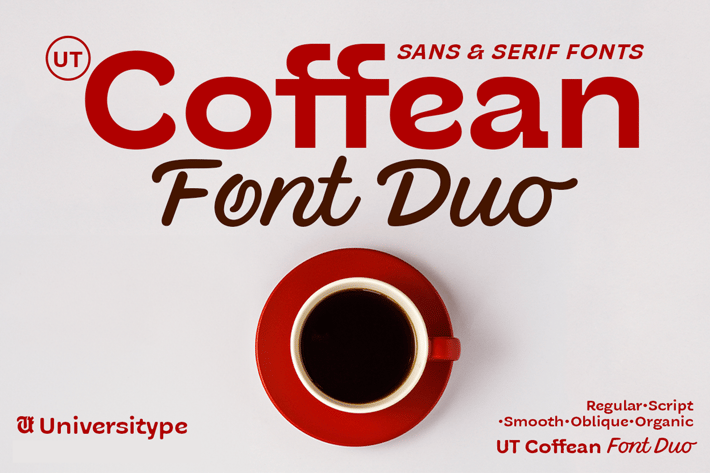
Coffean - A Display Font Duo
Have you ever wonder how typography meets the cozy charm of your favorite café? well, meet Coffean Font Duo. Crafted with inspiration from the organic curves of a coffee bean, this font collection offers a versatile blend of Coffean Sans and Coffean Script, making it a go-to for anyone seeking a lovely coffee font with warmth and authenticity. Perfect for branding, packaging, or digital content, this Kenyan coffee font alternatives evokes a cozy, handcrafted feel, ideal for creating an inviting atmosphere in any design project. With a range of styles, including Coffean Sans Regular, Coffean Sans Smooth, Coffean Sans Oblique, and Coffean Sans Organic, this font family caters to diverse design needs.
Key Features:
Versatility in Styles: With five font styles in the Coffean Sans family and an elegant script option, this typeface offers flexibility and creative control for branding, headlines, and more.
Organic Inspiration: The font’s curves, subtle indentations, and natural flow are inspired by the structure of a coffee bean, bringing a handcrafted quality that sets it apart.
Multi-Language Support: Built with multi-language support, Coffean adapts to diverse audiences, making it a fantastic display typeface for global brands.
Display Typeface with Personality: This decorative sans-serif font family balances readability with style, creating an inviting look for any headline, medium, or condensed layout.
Inspiration Behind the Design:
The creation of Coffean Font Duo began with a close study of the coffee bean’s anatomy. The aim was to capture its essence — a shape that resonates with warmth, richness, and comfort. Each character in Coffean Sans mirrors the bean’s organic form, with rounded edges, smooth curves, and a central “crease” that symbolizes both structure and softness. This subtle asymmetry adds a human, approachable touch, reminiscent of the coffee bean’s natural charm.
In Coffean Script, the design takes on a more fluid, handwritten quality, resembling the swirling motion of steam over a freshly brewed cup. The script style has a light, graceful movement, offering an inviting and personal feel. With variations like Smooth and Oblique, the font achieves a balance between structure and flow, making it adaptable to various moods and applications.
Every detail in Coffean was meticulously refined to embody the earthy appeal of the coffee bean, resulting in a versatile typeface that’s ideal for coffee brands, cozy cafes, and any project that seeks a warm, authentic touch.
Stylistic Features: Includes two sets of stylistic alternates, ligatures, and swashes, offering designers the ability to fully customize their typography.